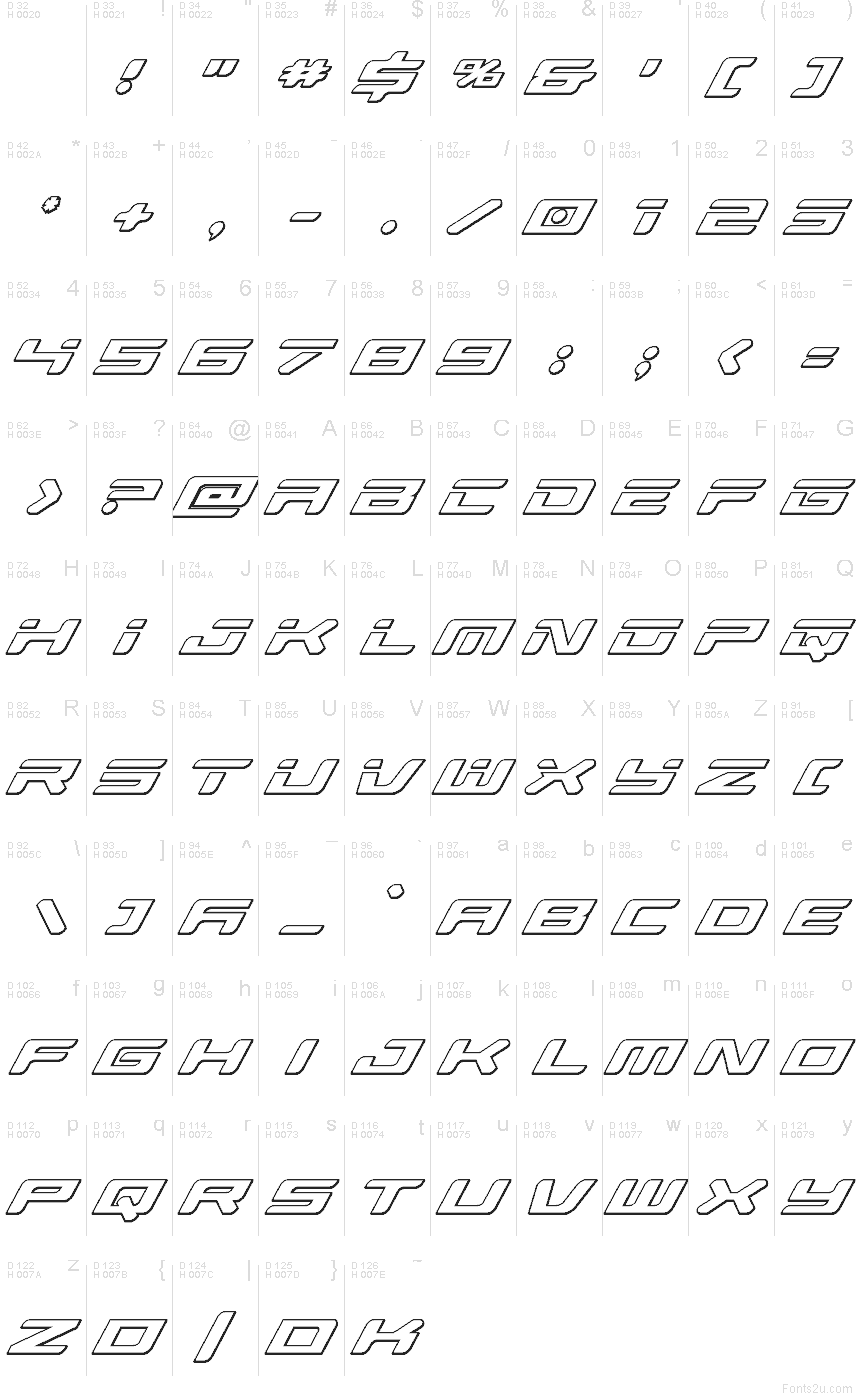
Race Pod 3D Super-Italic
Race Pod 3D Super-Italic font by Iconian Fonts is a free 3D futuristic display typeface that feels like it’s been pulled straight off a racing livery or sci‑fi speedometer. The letterforms are stretched forward with an aggressive slant, hollowed centers, and chiseled edges that catch the eye like chrome in motion. Its built‑in 3D bevel gives text a slick, machined depth, so even a single word looks like a custom logo.
Using Race Pod 3D Super-Italic, you can instantly charge up esports branding, gaming titles, racing posters, tech event graphics, YouTube thumbnails, and futuristic product packaging. Tight spacing and that sharp italic angle create a strong sense of velocity, especially at large sizes. This free font pairs well with a clean geometric sans from the Race Pod family or another neutral sans set small underneath as supporting copy.